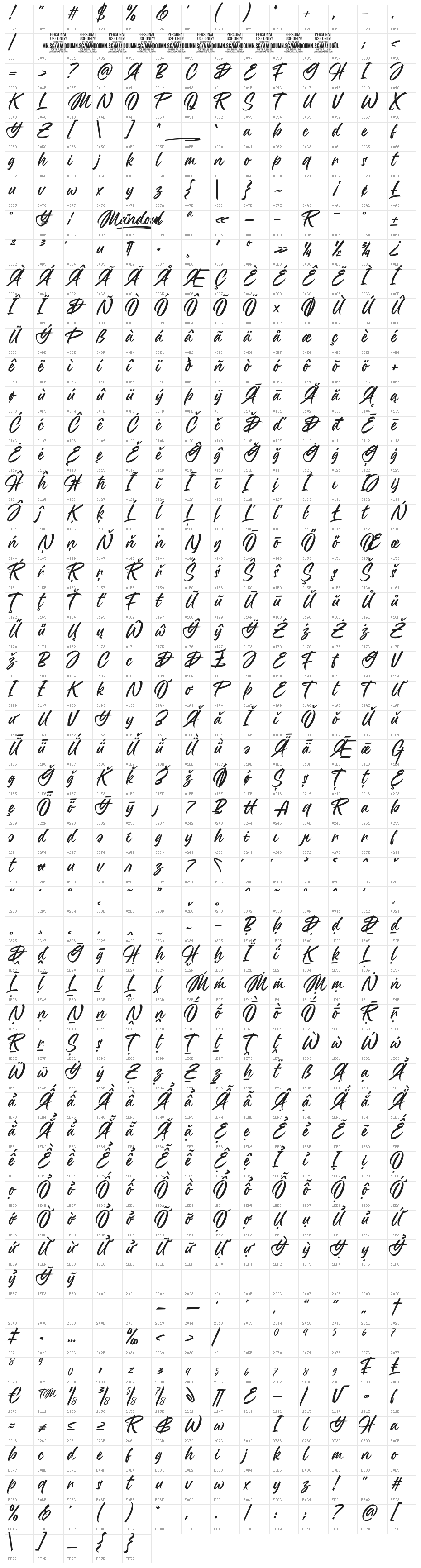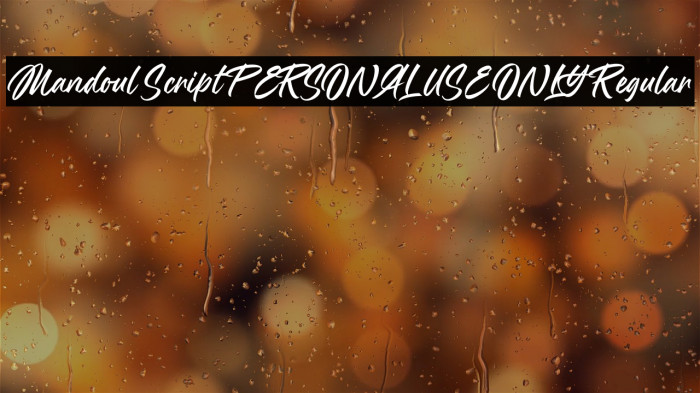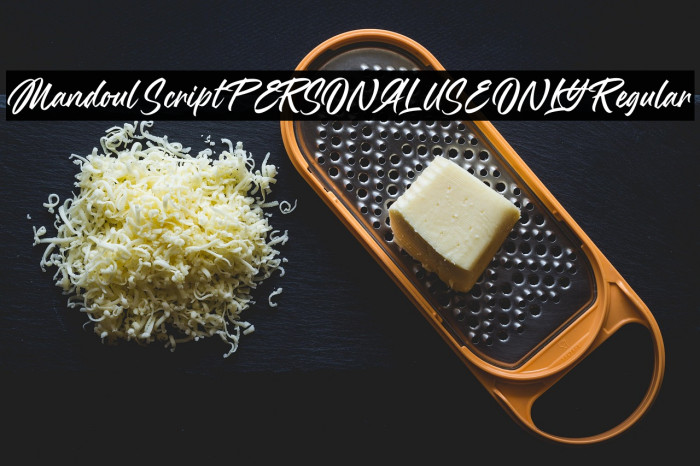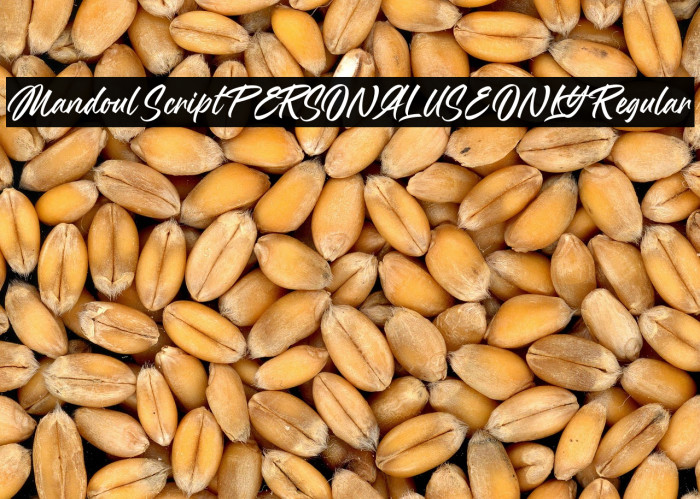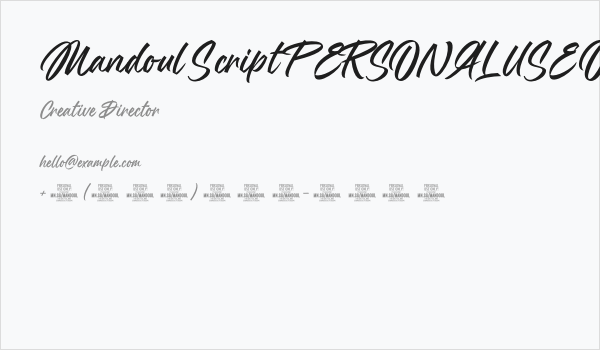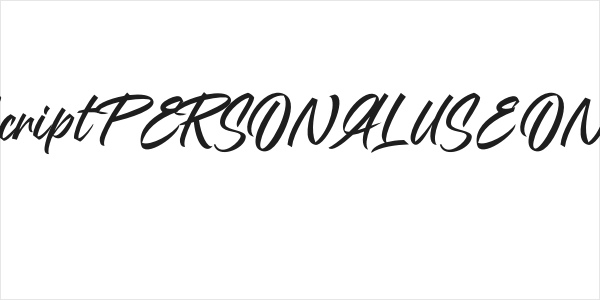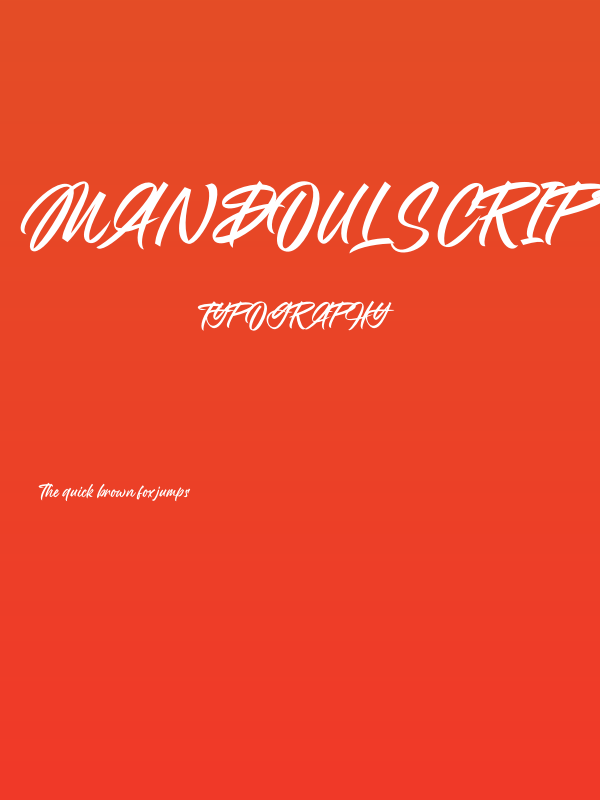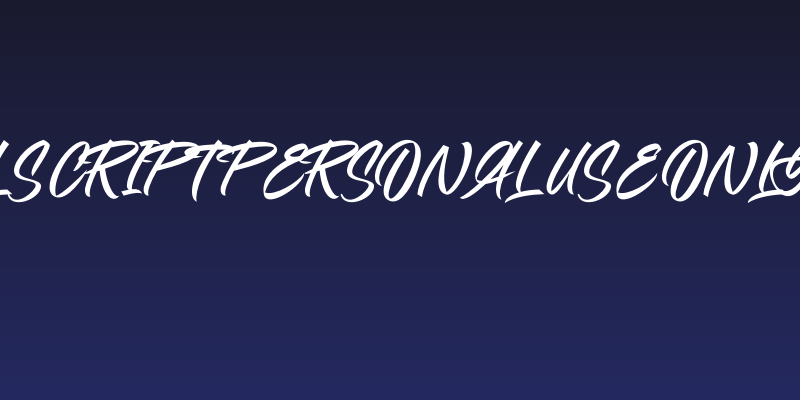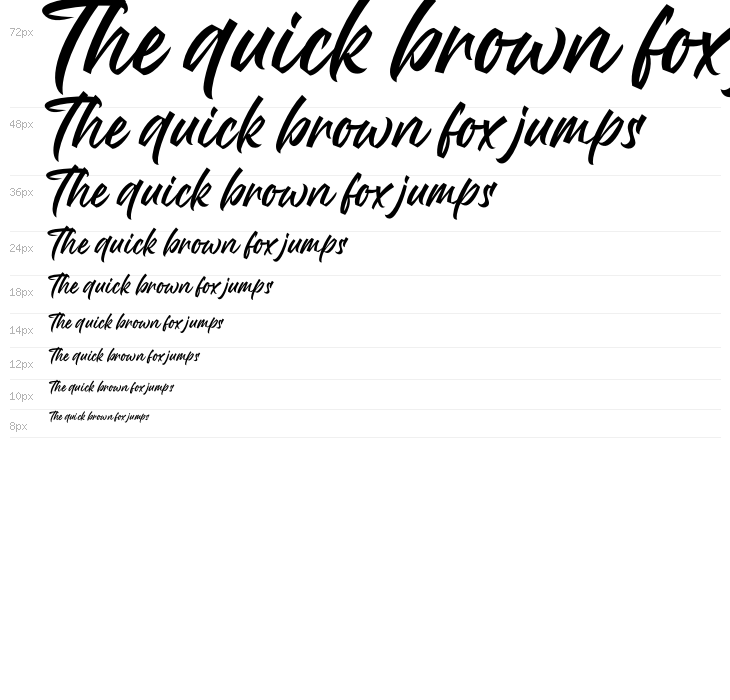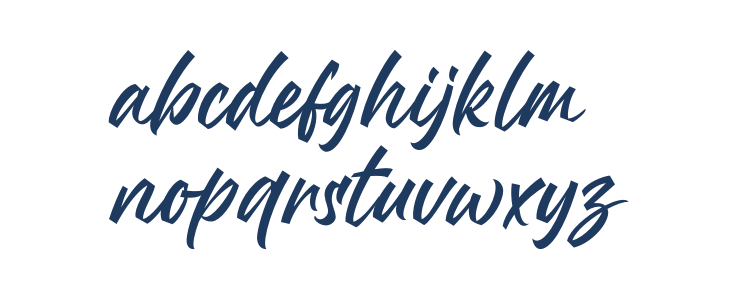
Mandoul Script PERSONAL USE ONLY Regular Font
Mandoul Script PERSONAL USE ONLY Regular Description
This font features a dynamic and expressive script style, characterized by its fluid and cursive letterforms. The strokes are bold and sweeping, giving it a lively and energetic appearance. The uppercase letters are particularly striking, with dramatic flourishes and a sense of movement. The lowercase letters maintain a consistent flow, enhancing readability while retaining the font's artistic flair. The numbers and special characters are crafted with the same attention to detail, ensuring a cohesive look across all glyphs. This font is ideal for projects that require a personal touch or a sense of elegance and creativity.
Proposed ProjectsIdeal for branding, invitations, greeting cards, and artistic projects that require a personal and elegant touch.